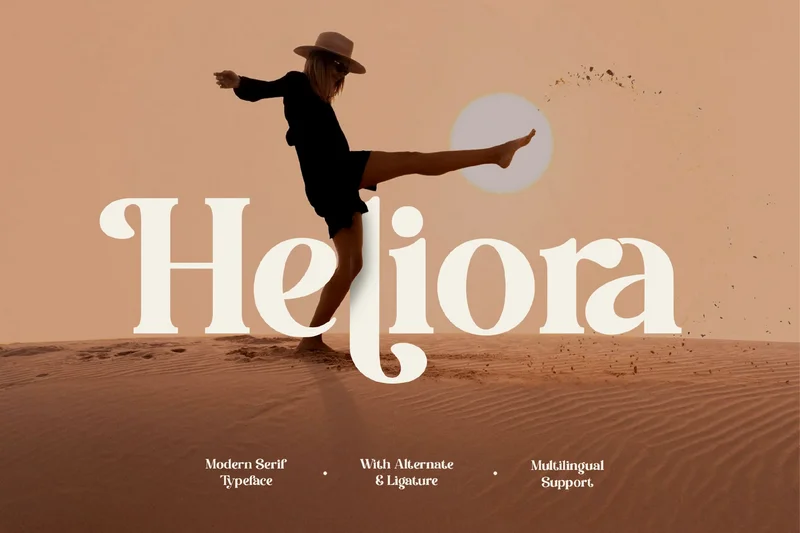
Modern Serif Heliora Font
Introducing Heliora, a modern serif typeface that embodies elegance, confidence, and timeless sophistication. With its high-contrast strokes, artistic curves, and refined letterforms, Heliora blends contemporary style with classic charm — perfect for projects that demand both beauty and boldness. Designed with alternates and ligatures, Heliora offers endless creative possibilities for logos, editorial designs, fashion branding, and luxury packaging.
Perfect for both display titles and stylish subheaders, Heliora elevates your typography and communicates exclusivity at a glance. Its versatility makes it ideal for branding agencies, editorial designers, social media creatives, and premium design studios.